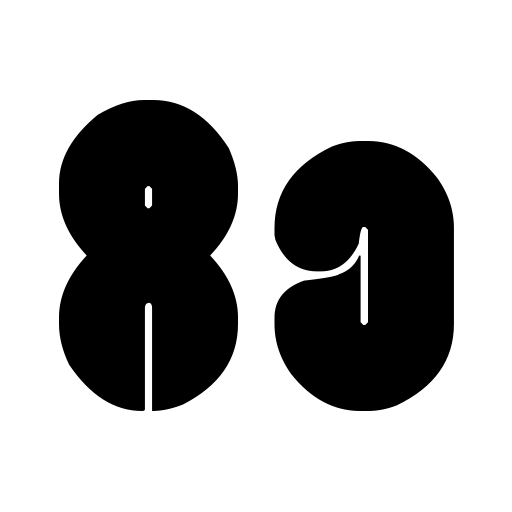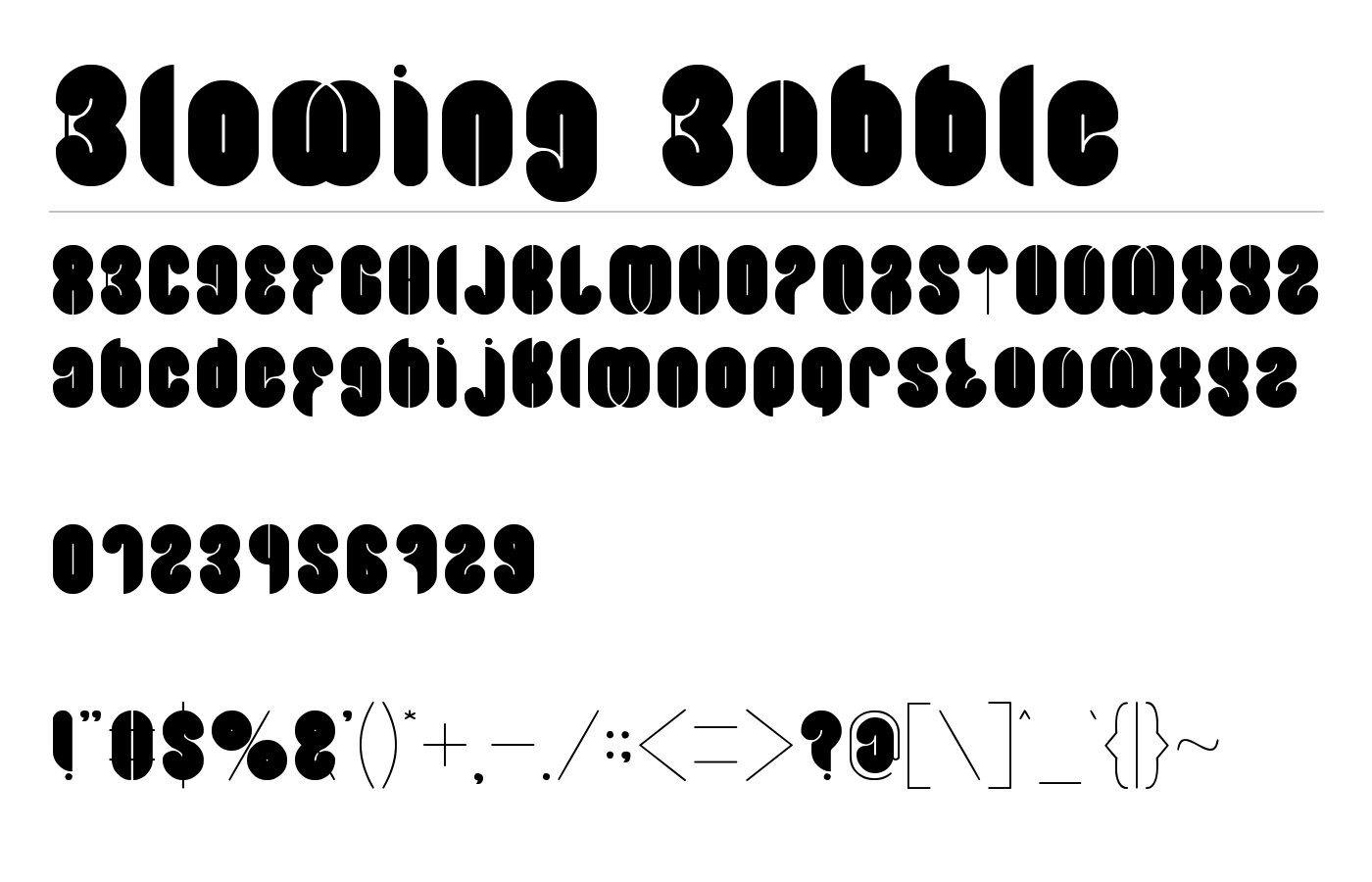
Blowing Bubble is a bold, playful display font with a quirky, rounded style that gives it a bubbly, fun personality. Its heavy weight and unique, almost puzzle-like shapes make it perfect for eye-catching headlines, logos, and creative projects that want to convey a sense of whimsy and joy. This font works best where a dramatic, joyful impact is needed, such as posters, branding for children’s products, or lively event promotions.
Blowing Bubble Font
About Blowing Bubble Font